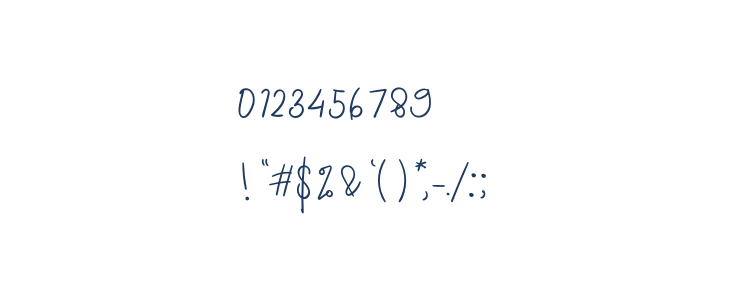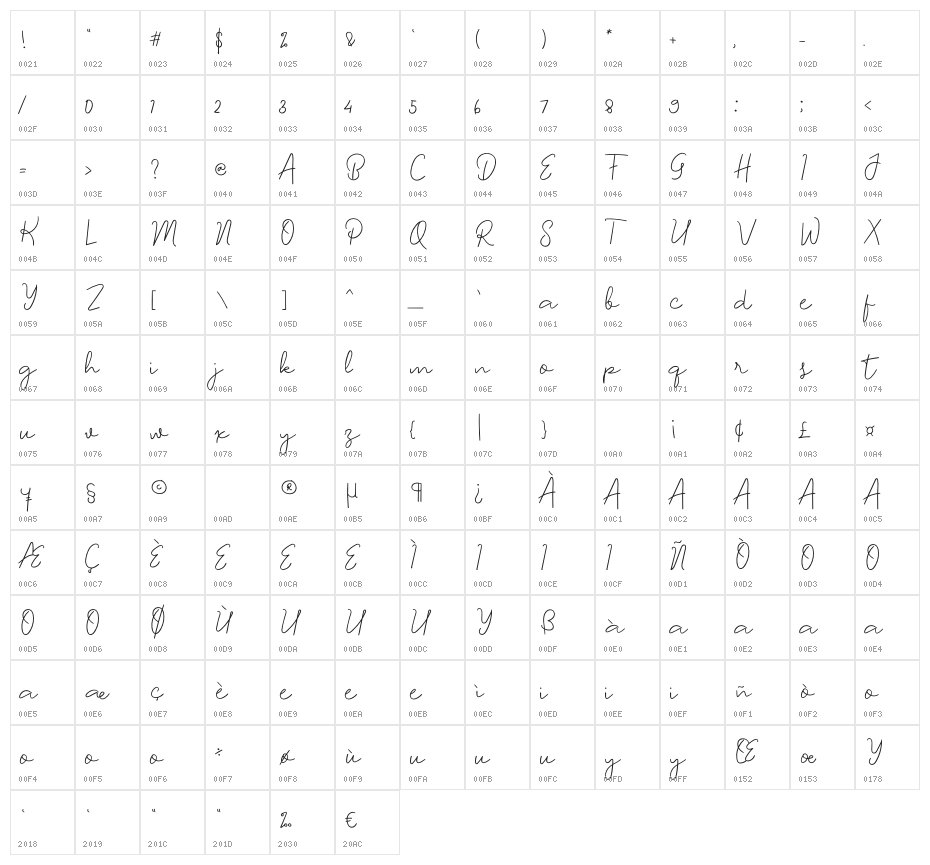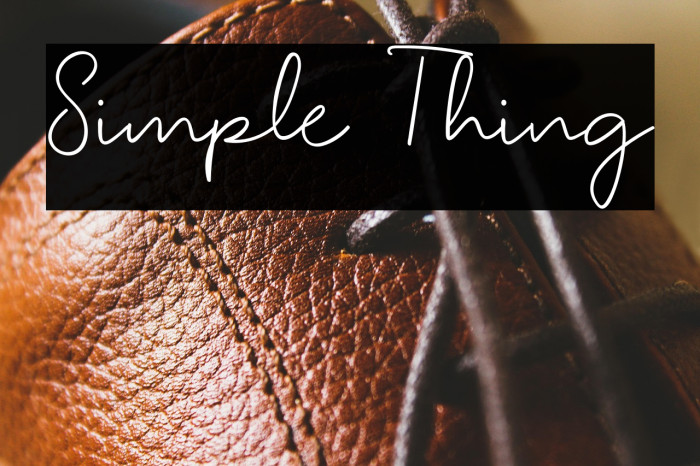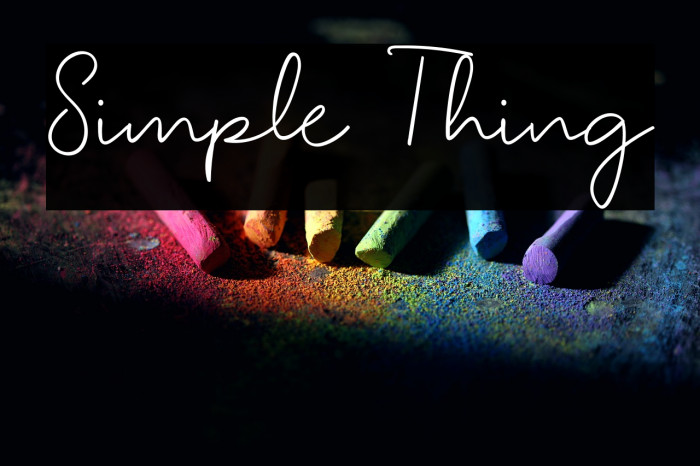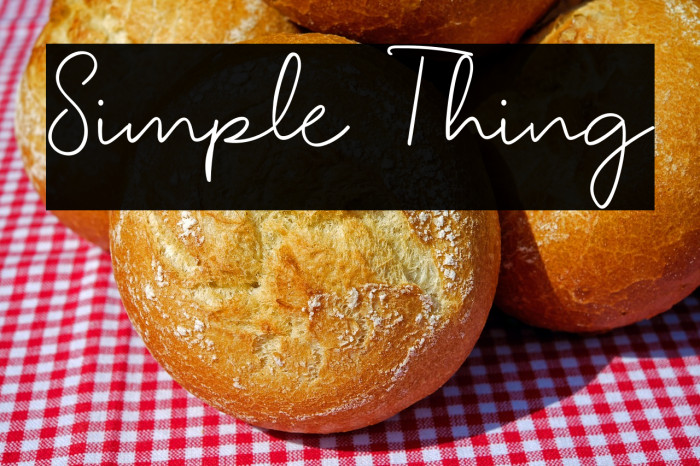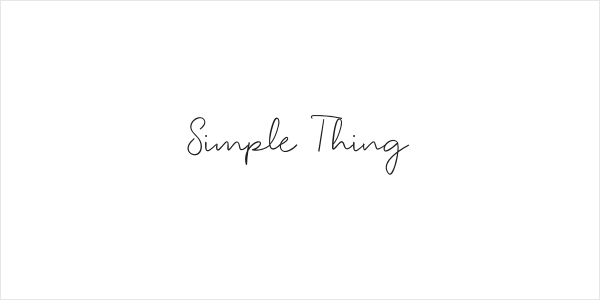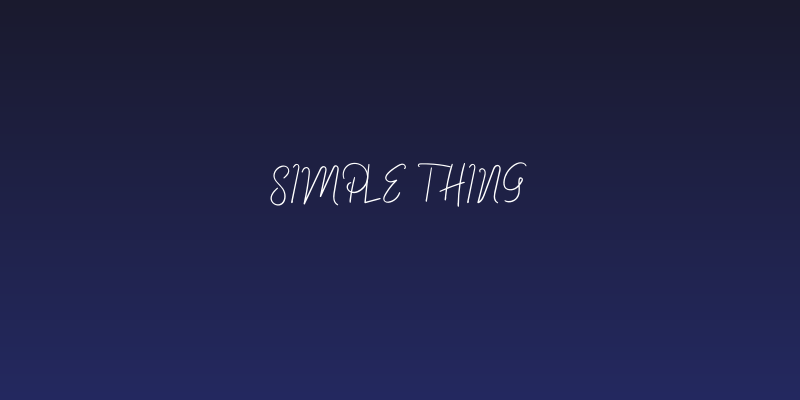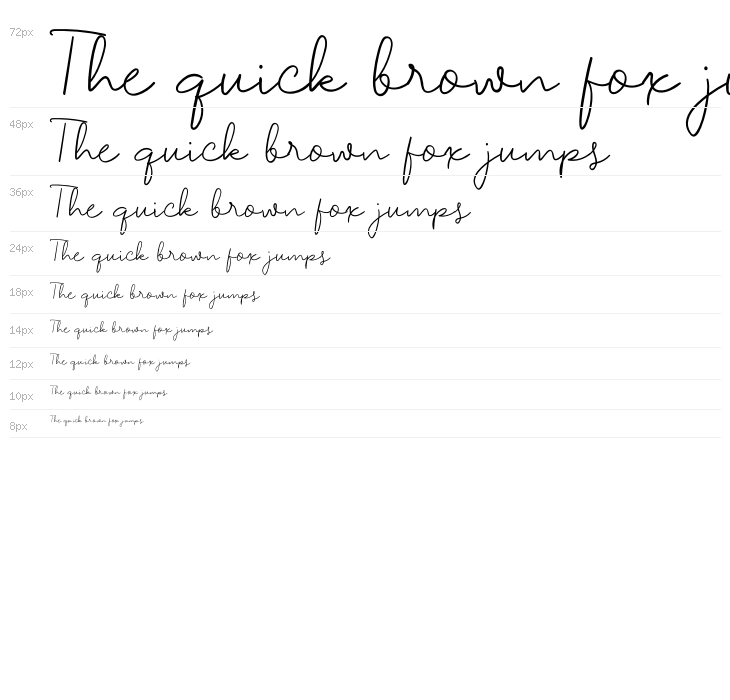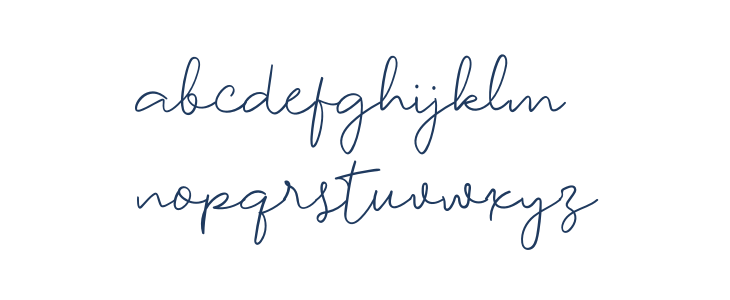
Simple Thing Font
Simple Thing Description
This font exudes a casual, handwritten style with a touch of elegance. The letters are connected in a flowing manner, reminiscent of cursive writing, yet maintain a modern and approachable feel. The uppercase letters are tall and slightly narrow, while the lowercase letters are more rounded and fluid. The numerals are consistent with the overall style, offering a cohesive look. Special characters are included, maintaining the same handwritten aesthetic. This font is perfect for projects that require a personal touch, such as invitations, greeting cards, or branding materials.
| Use Case | Headlines, Logos, Invitations |
| Proposed Projects | Ideal for invitations, greeting cards, personal branding, and creative projects. |